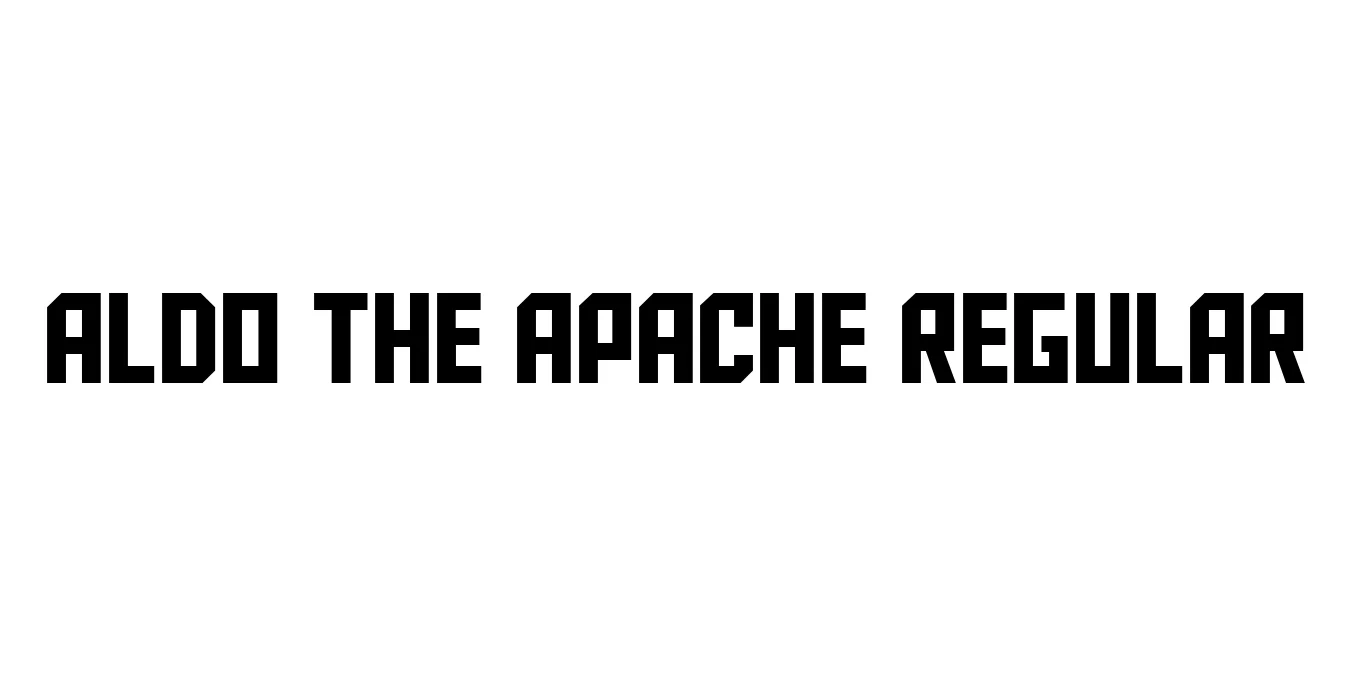
Aldo the Apache Regular
Designed by Gary Gnu
| Font Name | Aldo the Apache |
| Designer | Gary Gnu |
| Similar Fonts | Impact, Stencil, Bebas Neue, Amarillo US Air Force |
Aldo the Apache Regular is a high-impact, condensed sans-serif typeface that draws heavy inspiration from military and industrial aesthetics. Its design features sharp, angular terminals and a thick, uniform stroke weight that mimics the stenciled lettering often found on vintage machinery, crates, and military transport vehicles. This rugged construction gives the font an authoritative and masculine presence, making it a go-to choice for designers looking to convey strength and durability.
The typeface was created by Gary Gnu and has gained significant popularity in the gaming and film industries. Its compact width allows for large-scale headlines even in limited horizontal spaces, while its clean lines ensure it remains legible despite its heavy weight. Whether it is being used for urban streetwear branding, action-movie posters, or digital interface design for military simulations, Aldo the Apache Regular provides a timeless, gritty look that stands the test of time.
Aldo the Apache Regular Best Uses
Perfect for powerful, high-impact titles in posters, magazines, and websites.
Excellent for UI elements, titles, and loading screens in action-oriented games.
Ideal for streetwear brands, military-themed clothing, and graphic t-shirts.
Suitable for logos that require a tough, industrial, or urban identity.